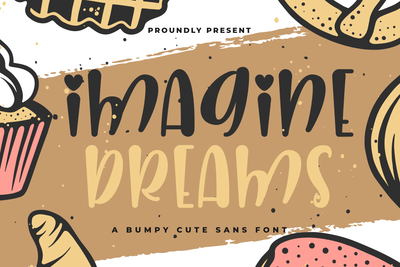
Imagine Dreams - A Bumpy Cute Sans Font
Introducing Imagine Dreams . Imagine Dreams is an amazing handwritten font . Made with naturally handwritten. The font will make your design more beautiful and powerful. This font is handmade and Very suitable for those of you who like handcrafted, you can use it for various design purposes. This font is suitable for any design like branding, quotes and etc. I hope you enjoy it !! Thanks for visiting and downloading my font!what’s inside :